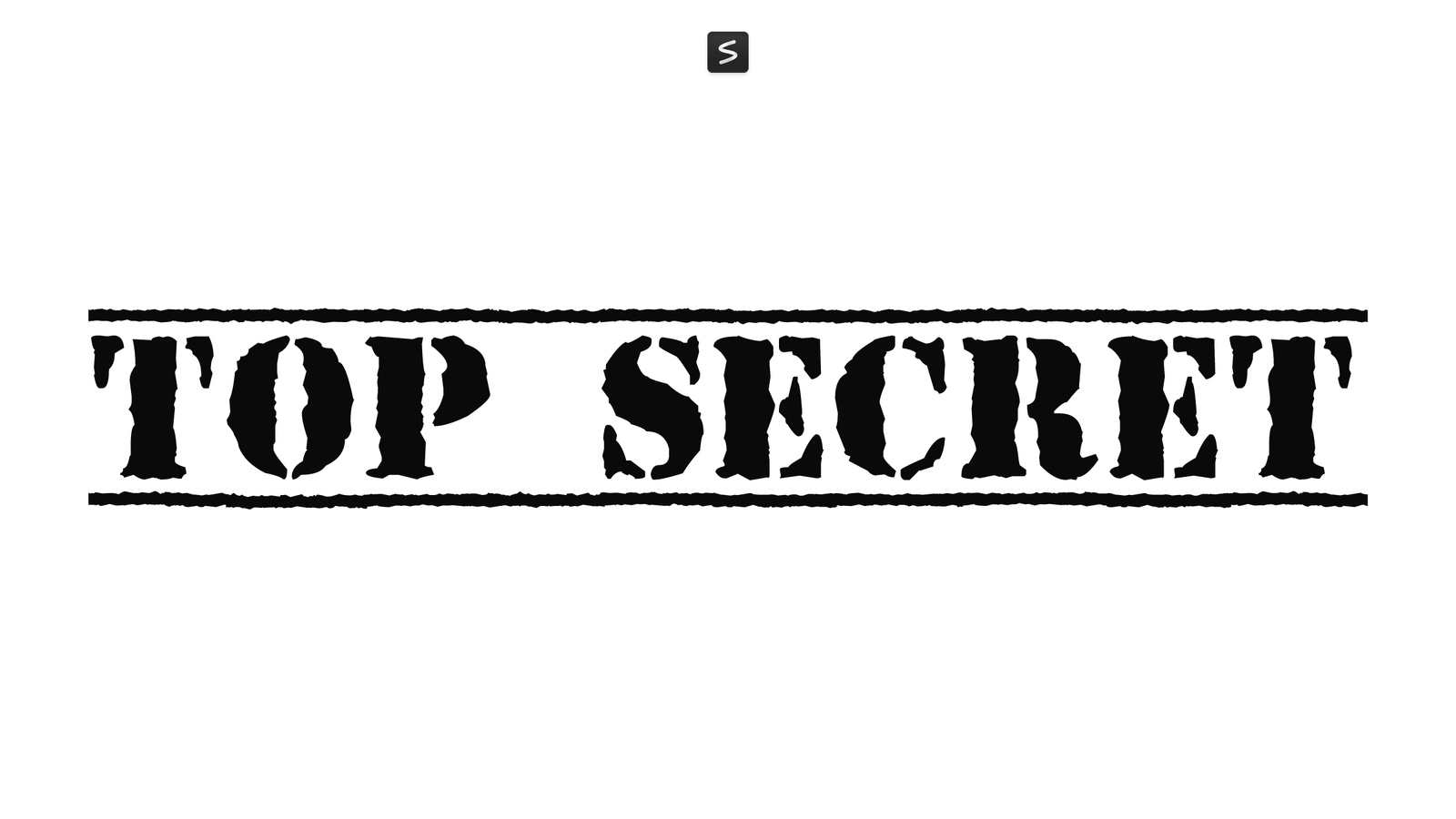
Top Secret is a display font designed by Magique Fonts that channels the aesthetic of classified documents and spy-thriller aesthetics. Its letterforms carry a distressed, slightly degraded quality that suggests secrecy and intrigue, with irregular edges and worn character that feel deliberately obscured or redacted.
The font works well for projects that need an edgy, underground, or clandestine mood: movie posters, thriller book covers, gaming interfaces, album artwork, or any design where mystery and tension matter. Its rough texture and irregular forms add visual weight without sacrificing readability at display sizes, making it a solid choice for headlines and branding that wants to convey attitude or danger.